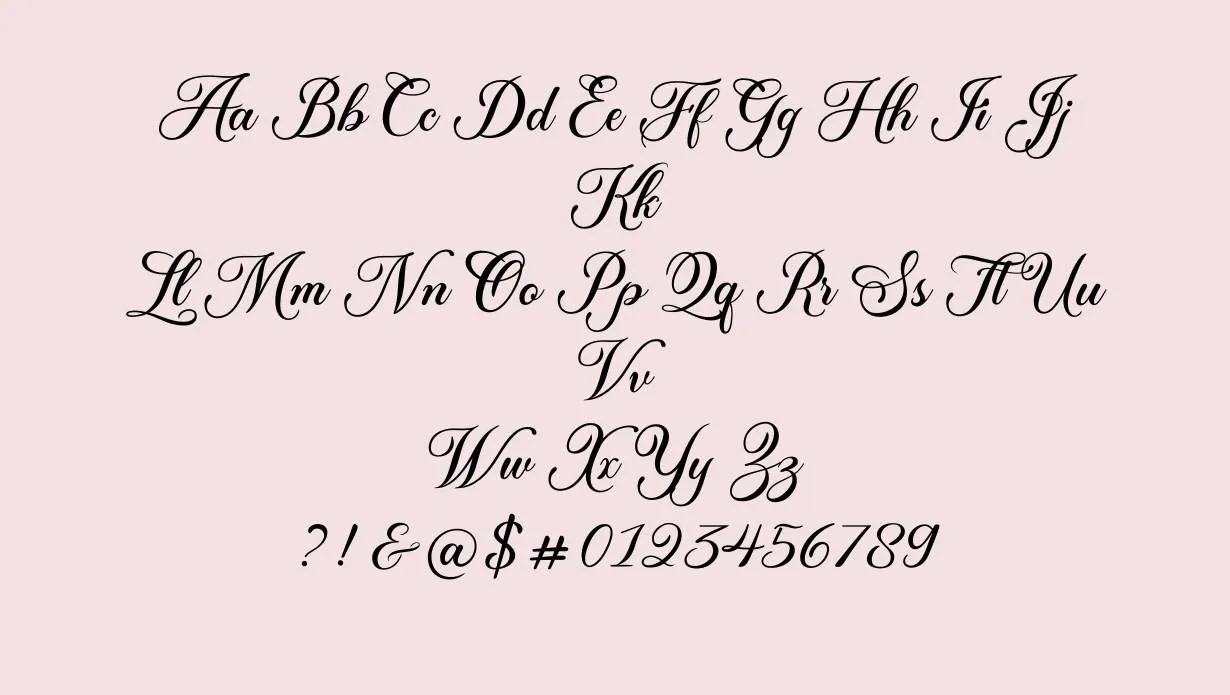
The Madina Script Font gracefully enhances your designs with a flowing script reminiscent of elegant handwriting. Ideal for projects seeking sophistication or a personal touch, its graceful characters bring a sense of fluidity.
| Name | Madina Script Font |
| Designer | Sam Parrett |